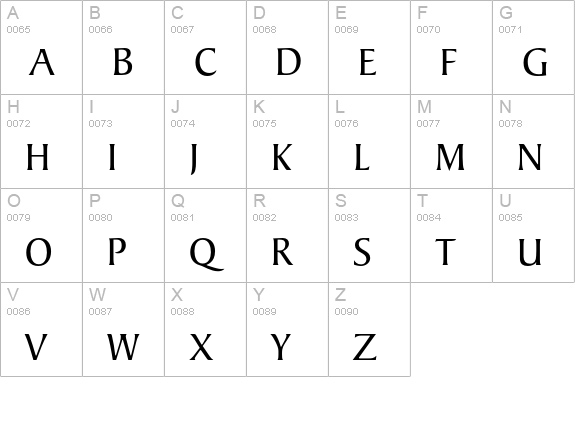
Baker Signet font is a timeless and elegant typeface that exudes sophistication and charm. With its distinctive calligraphic strokes and classic design, this font is perfect for adding a touch of refinement to any project. Whether you are creating invitations, branding materials, or signage, Baker Signet font will elevate your design with its graceful aesthetic. The best part? Baker Signet font is available for free download at FontsMarket.com. This means you can easily access this beautiful typeface and use it in your creative endeavors without any cost. Don't miss out on the opportunity to enhance your projects with the exquisite beauty of Baker Signet font. Download it today and let your creativity shine!